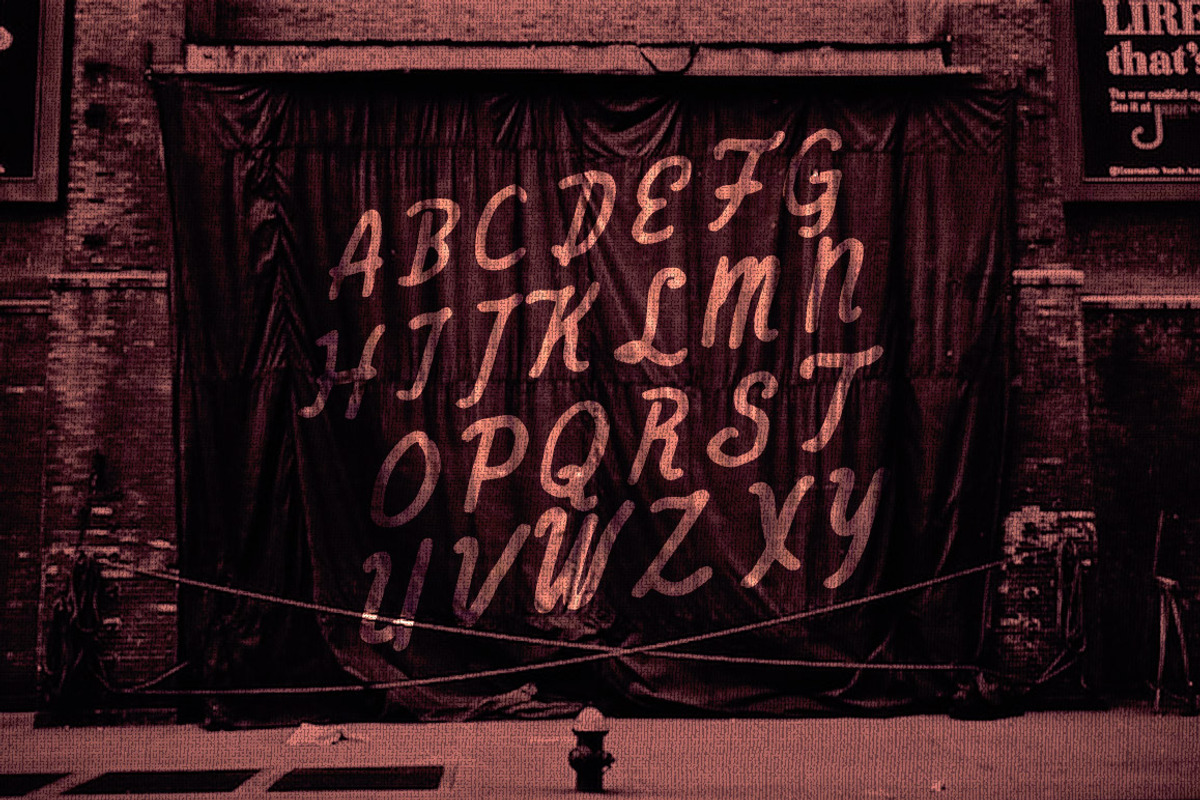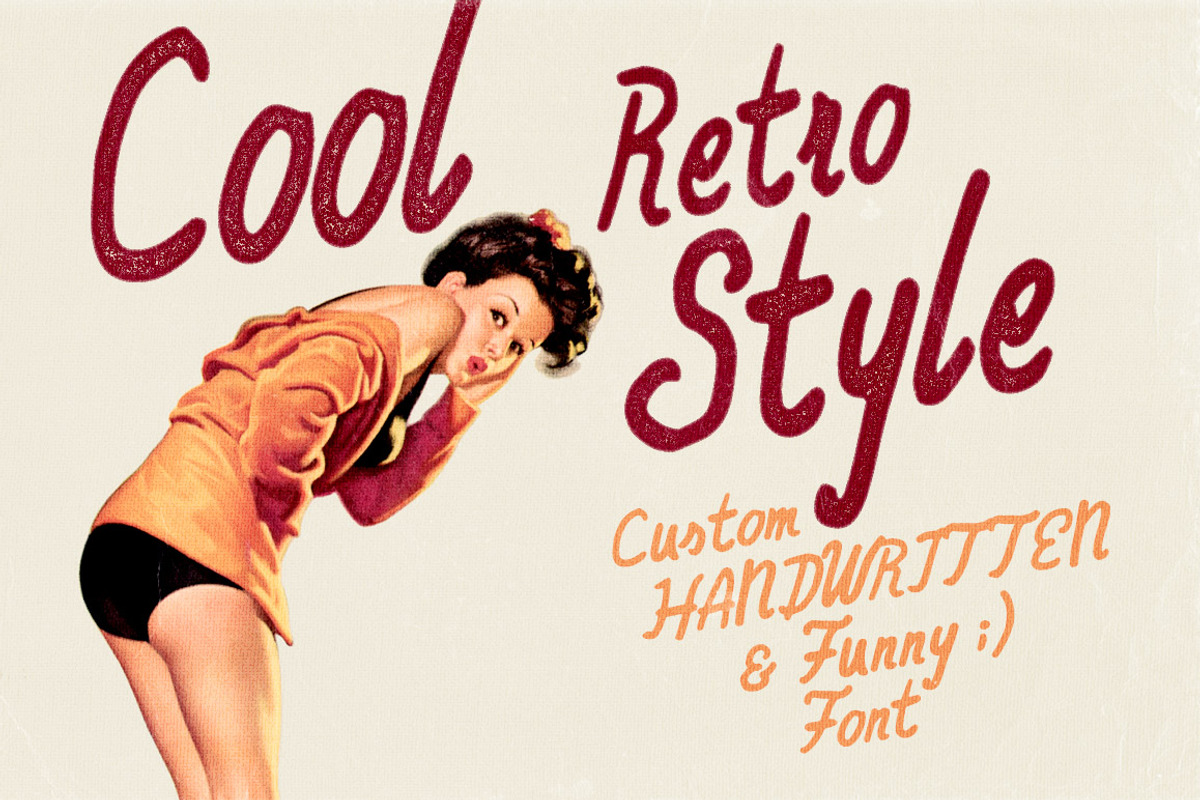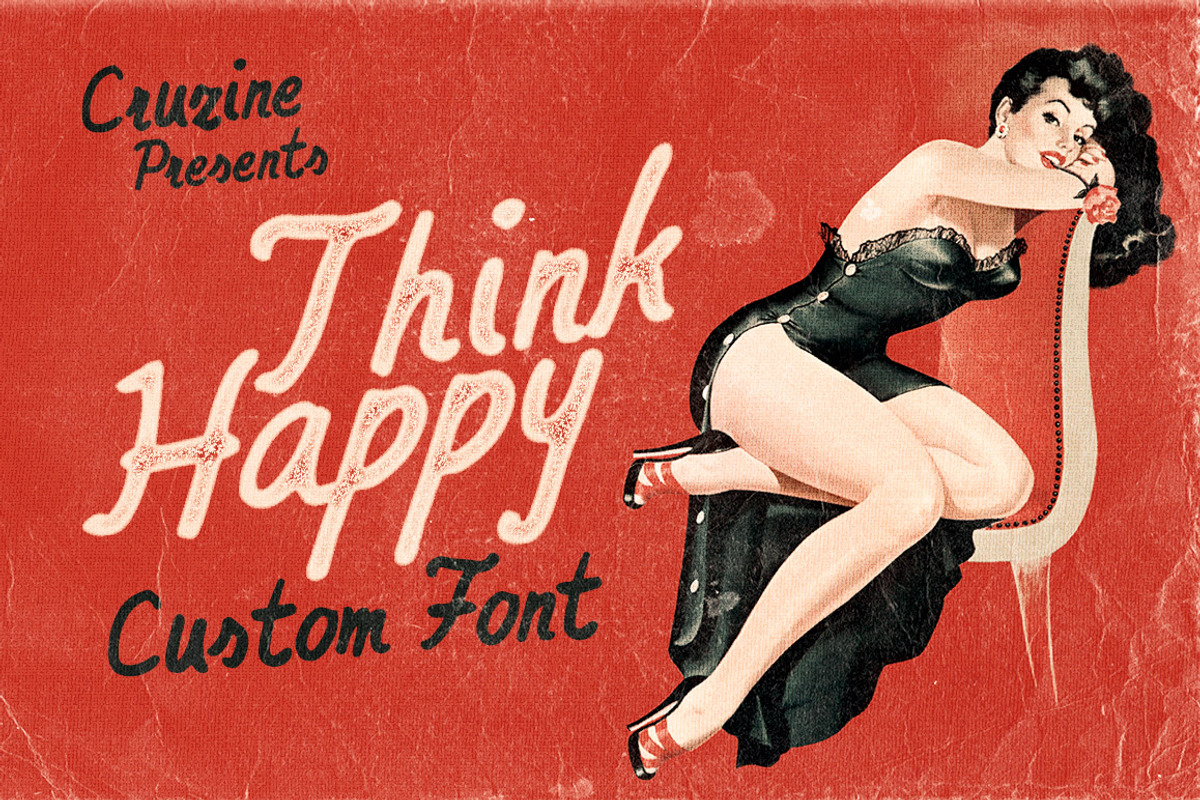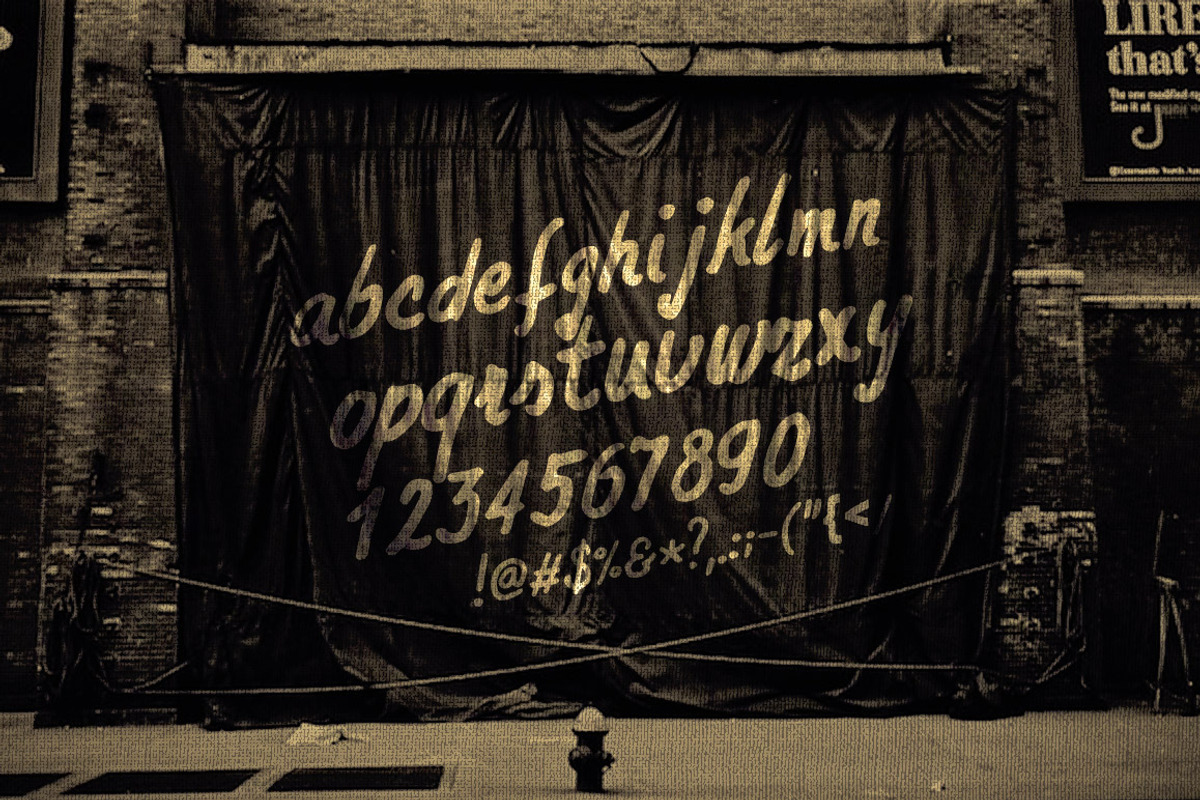
Think Happy Custom Font
Think Happy Custom Font by Cruzine is a font selected for branding, posters, packaging, typography.
Why Think Happy Custom Font is worth a look
Think Happy Custom Font by Cruzine fits naturally into Branding, posters, packaging, typography.